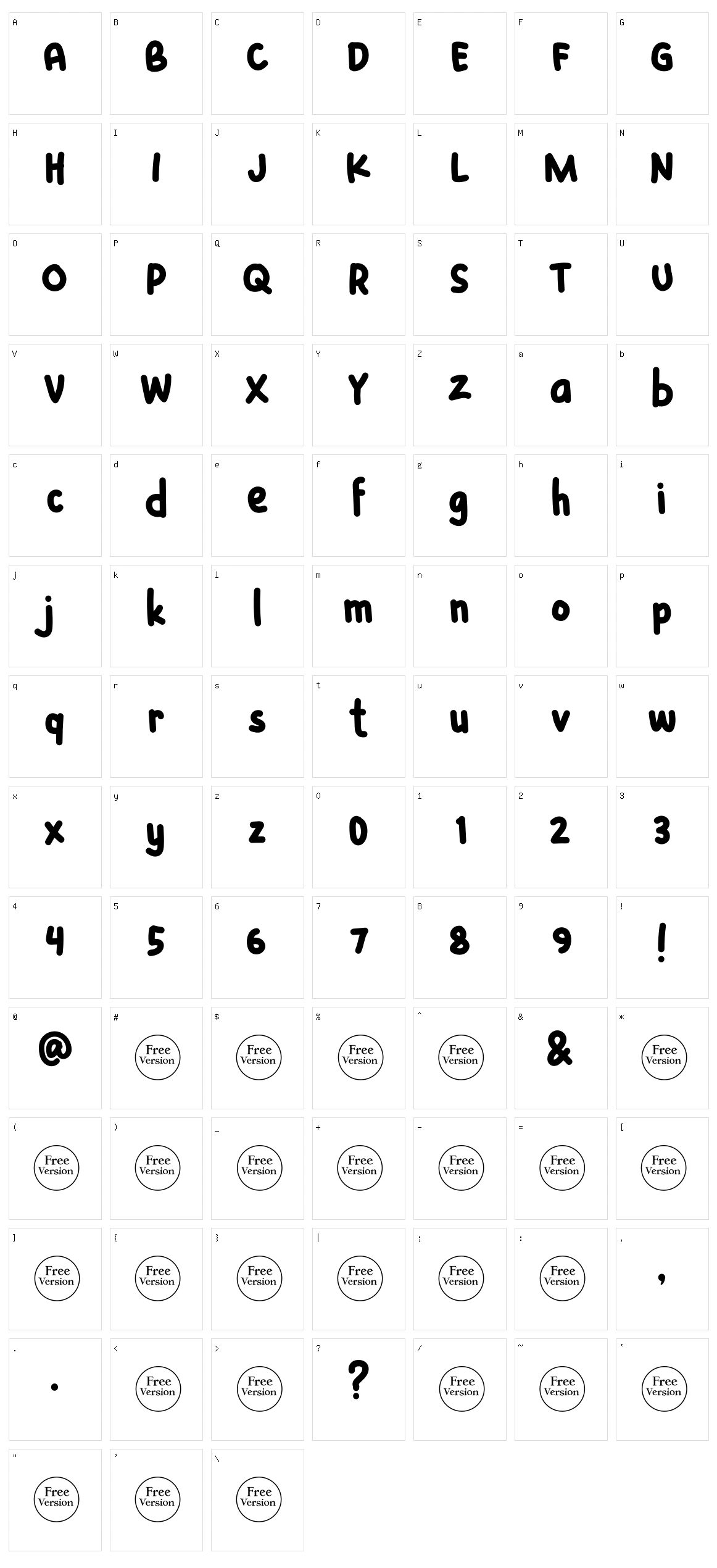
The free font My Home is carefully designed by Typefactoryco, showcasing a thoughtful balance of creativity and usability and falls under the Cartoon font style. When you download the ZIP file, it contains only 89.25 KB of font files, making it lightweight and quick to download. Please review the license details below to understand permitted usage and distribution rights. If license information is not available, we recommend using this font for personal projects only or contacting the author directly for commercial usage permissions.